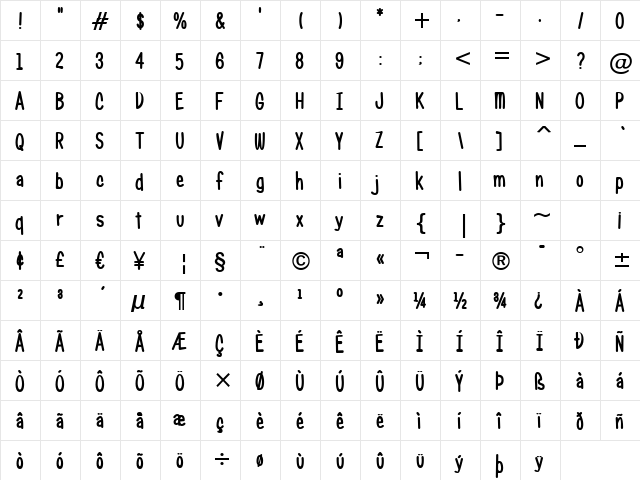
Candy Round BTN Cond Bold
Design Context for Candy Round BTN Cond Typeface
Candy Round BTN Cond softens its letterforms with rounded terminals, giving it an approachable, friendly quality that works well in consumer-facing and digital contexts. Its bold stroke weight gives it real presence on the page.
Well-suited to UI design, mobile interfaces, and any brand that wants approachability without sacrificing clarity.
Font Pairing: Pairs well with a rounded or humanist sans for body copy, maintaining the friendly tone without relying on Candy Round BTN Cond to carry extended reading.
Pro Tip: Use Candy Round BTN Cond for UI elements, app interfaces, and anywhere a friendly, approachable tone needs to be maintained without sacrificing clarity.